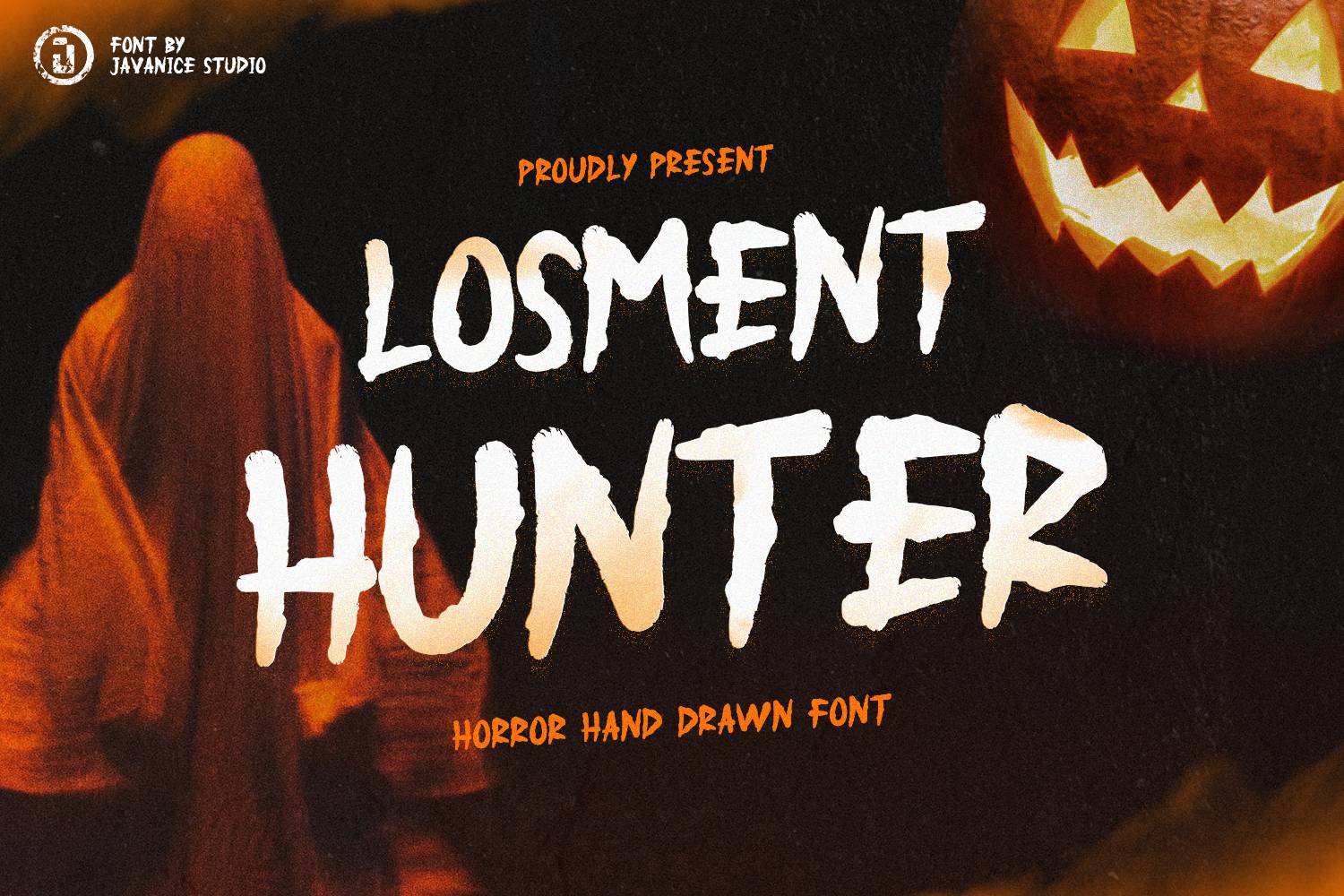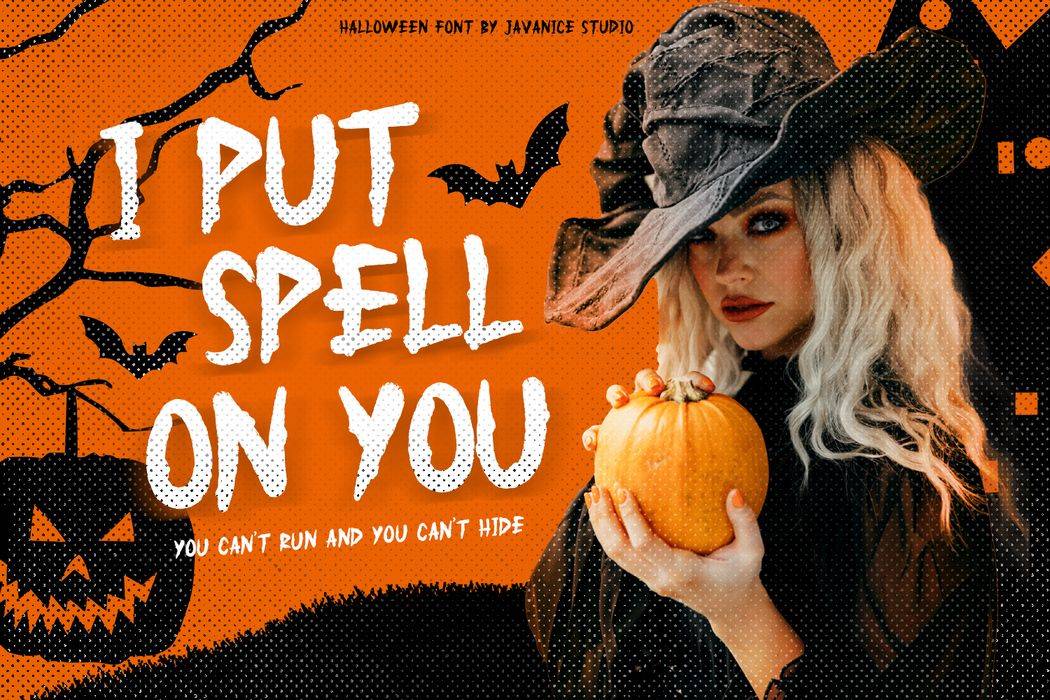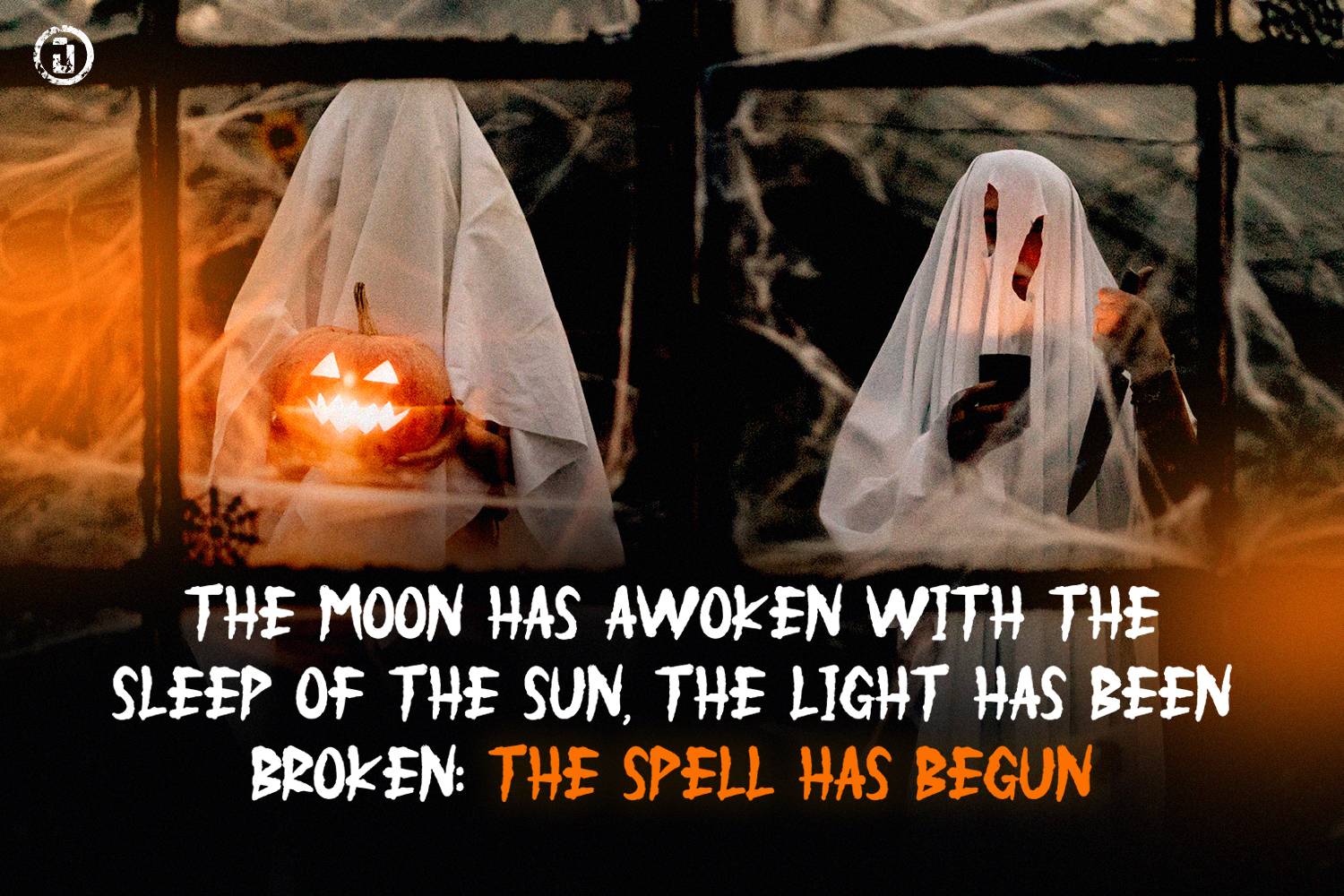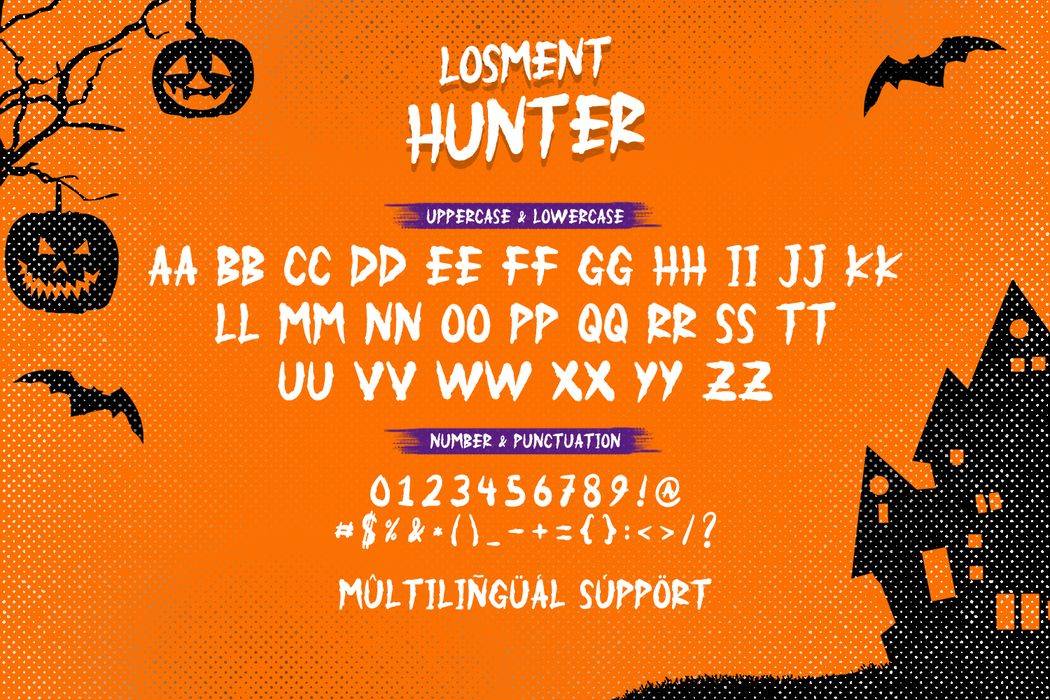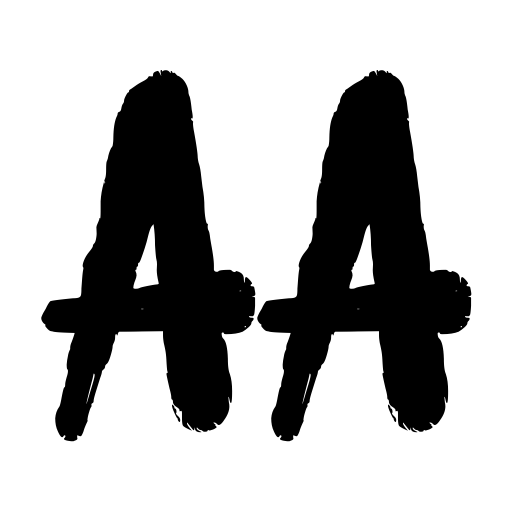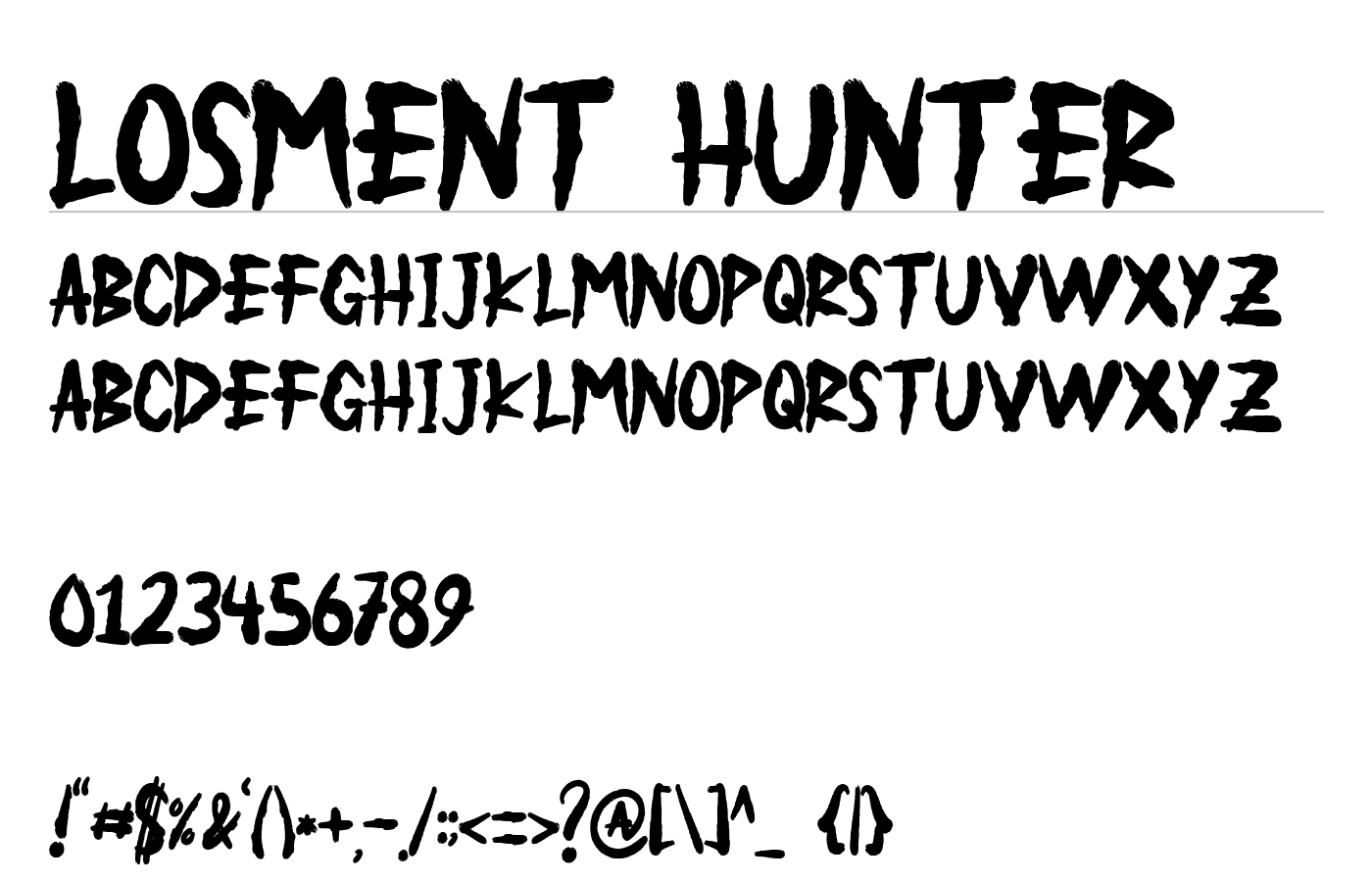
Losment Hunter is a bold, hand-drawn sans serif font with a rough, brushstroke texture that gives it an energetic and raw feel. Its irregular shapes and uneven edges create a playful, adventurous vibe, making it ideal for eye-catching logos, posters, and creative designs that want to convey spontaneity and uniqueness. This font works best in display sizes where its distinctive style can shine and add personality to bold, informal branding or artistic projects.
Losment Hunter Font
About Losment Hunter Font